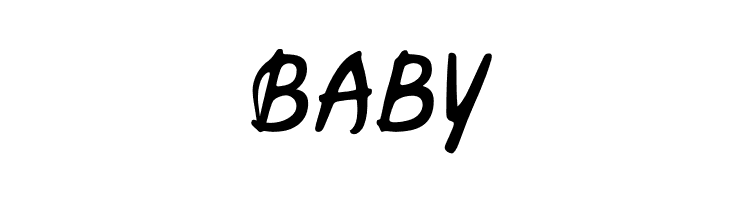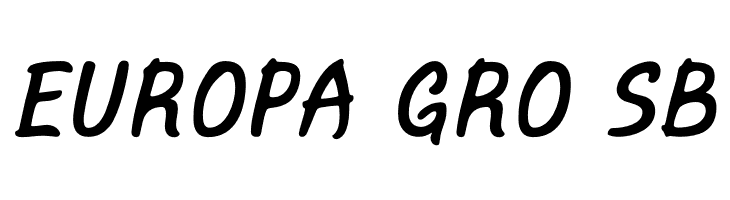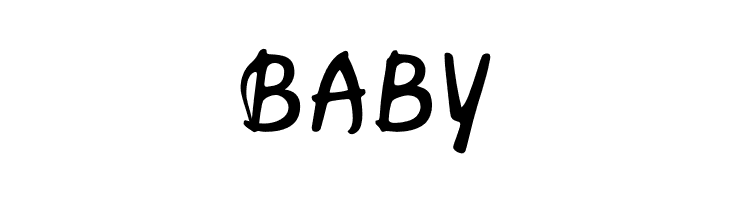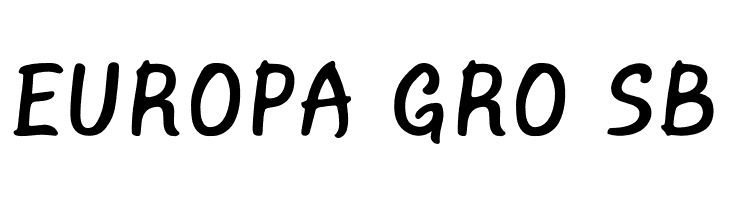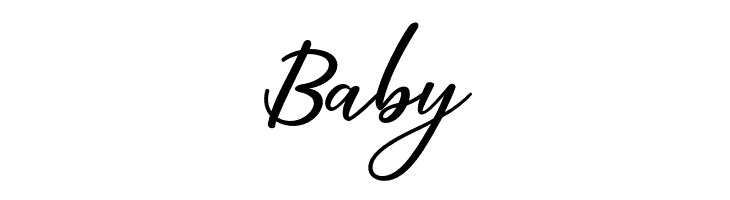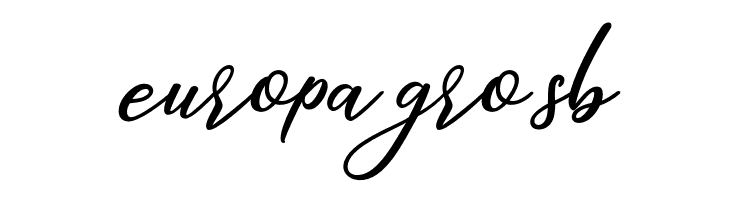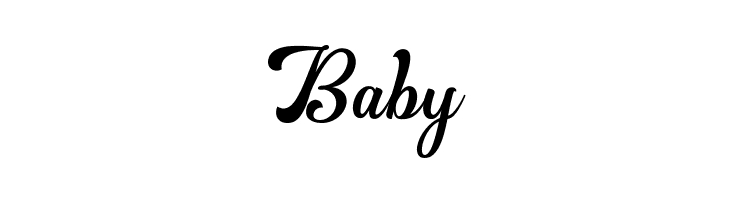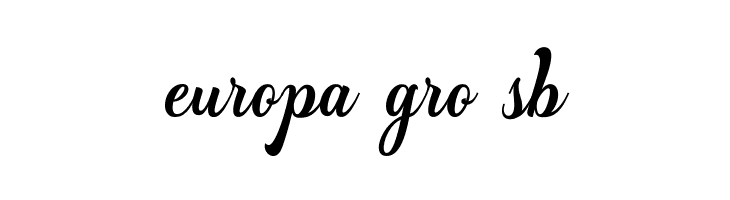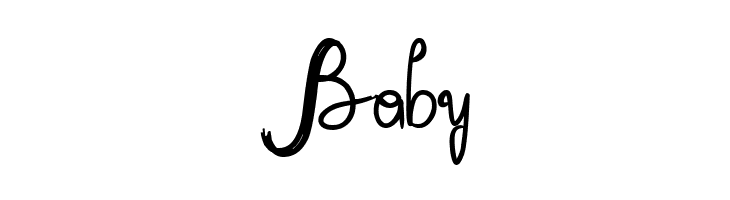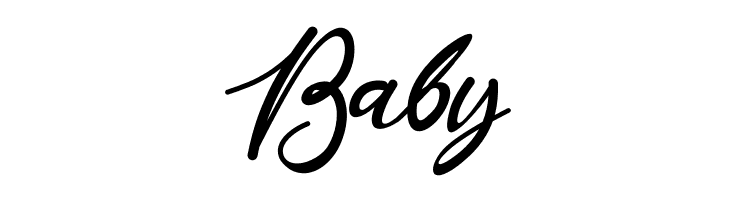
An elegant and flowing script font with classic cursive style.
An elegant, flowing script font with graceful curves and sophisticated flair.
A dynamic and elegant script font with flowing, cursive letterforms.
A sophisticated, cursive script font with elegant, flowing lines.
A bold, geometric font with a futuristic and dynamic style.
A bold, italic font with a modern and dynamic style.
A modern, italicized font with dynamic, flowing letterforms and decorative elements.
A bold, geometric font with a modern and edgy design.
A futuristic hollow font with geometric and angular elements.
A modern, hollow, geometric font with a futuristic outline style.
A futuristic and geometric font with sharp angles and dynamic curves.
A modern, geometric font with sharp edges and a futuristic style.
A bold, italicized handwritten font with a playful and dynamic style.
A bold, handwritten-style font with a playful and dynamic appearance.
A playful, handwritten font with whimsical embellishments.
A playful, hand-drawn font with dynamic curves and a whimsical style.
A playful handwritten font with thin, flowing lines and a casual style.
A playful handwritten font with fluid, slender letterforms and a whimsical style.
A bold, geometric font with blocky, angular characters.
A bold, hollow, geometric font with a futuristic and angular design.
A modern, hollow, inverse font with bold outlines and geometric shapes.
A bold, angular font with a dynamic and modern style.
A bold, angular font with a geometric and futuristic style.
Bold, angular, and geometric font with a modern, dynamic style.
A bold, italic font with angular cuts and a dynamic, modern style.
A bold, geometric serif font with a modern and classic blend.
A bold, geometric font with rounded edges and sharp angles for a modern look.
A bold, italicized font with a modern and slightly decorative style.
A hollow, geometric font with a modern and angular design.
A bold, italic font with a dynamic and modern style.
A modern, geometric font with consistent stroke width and a sleek design.
A sleek, italic font with modern elegance and classic charm.
An elegant, flowing script font with ornate uppercase and connected lowercase letters.